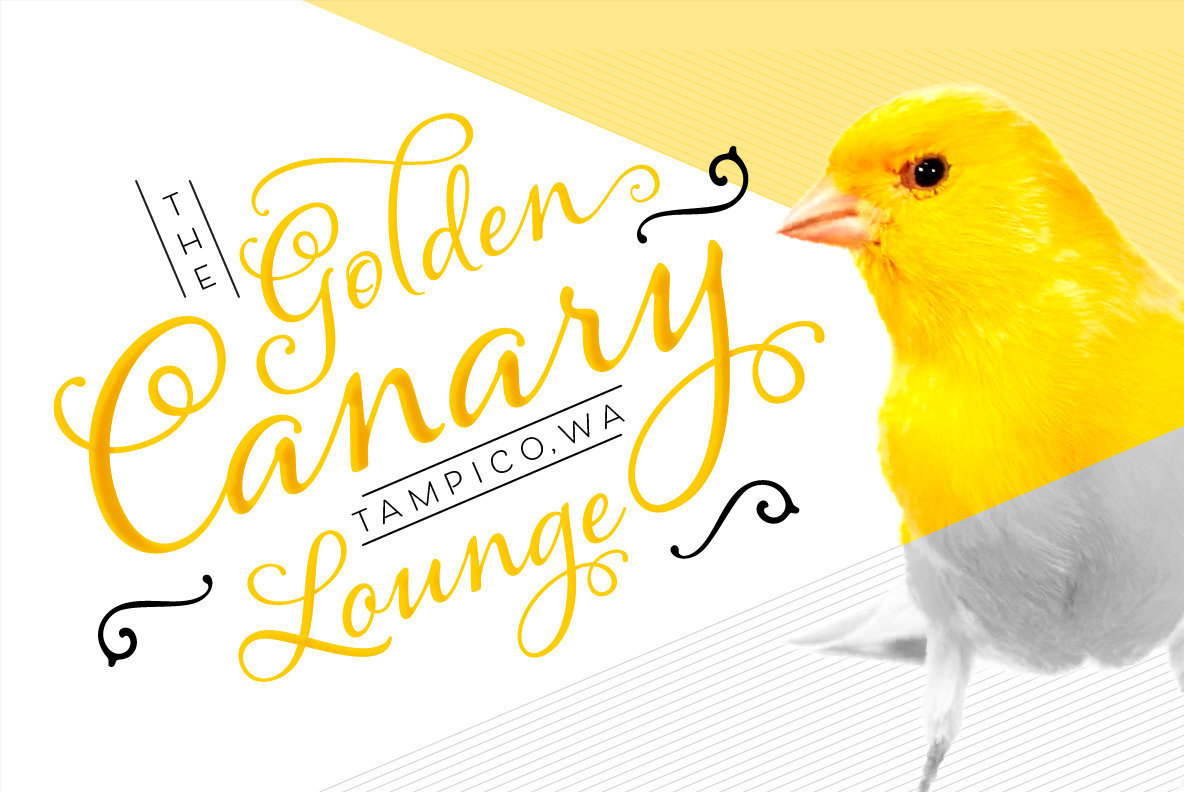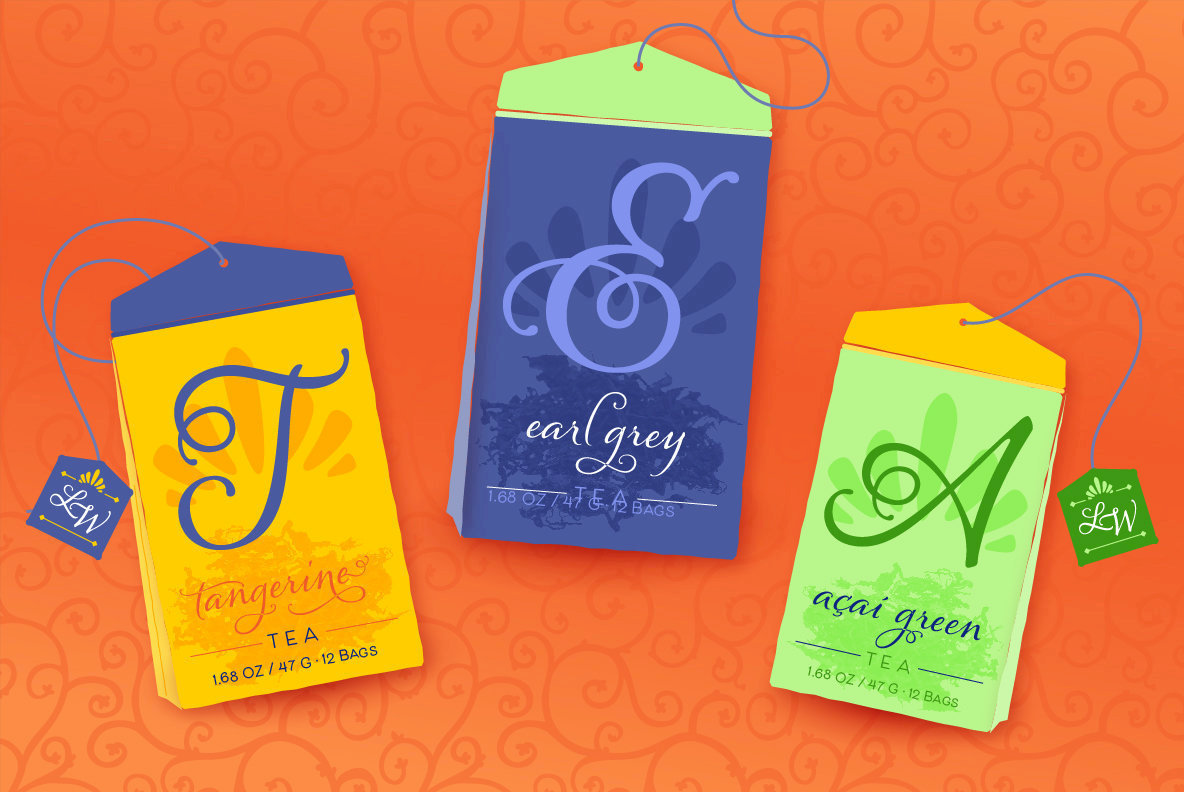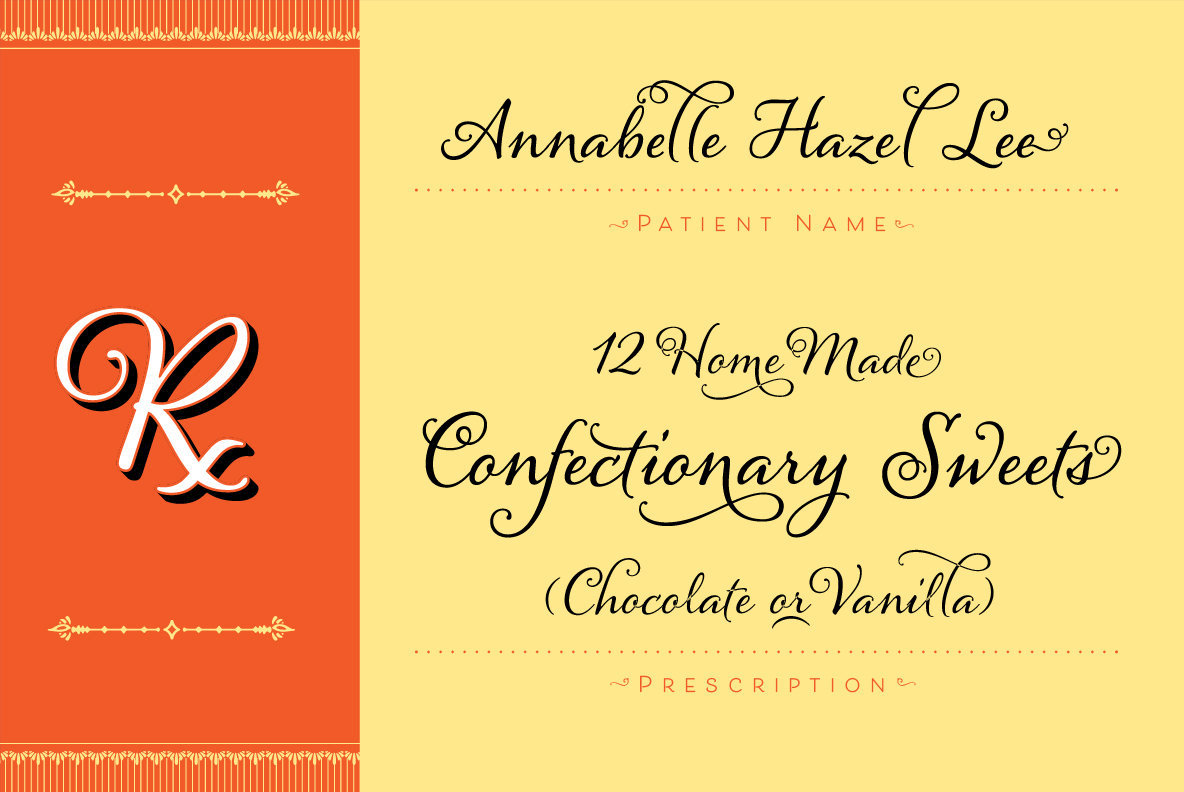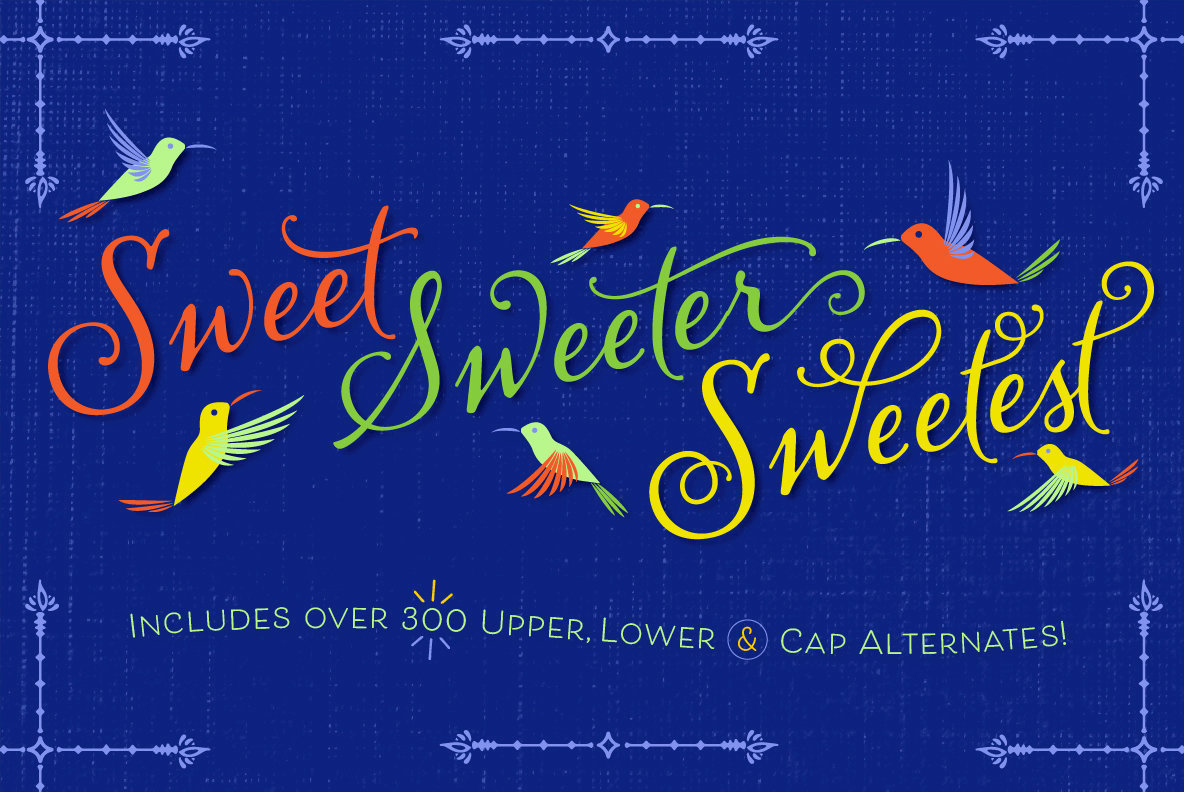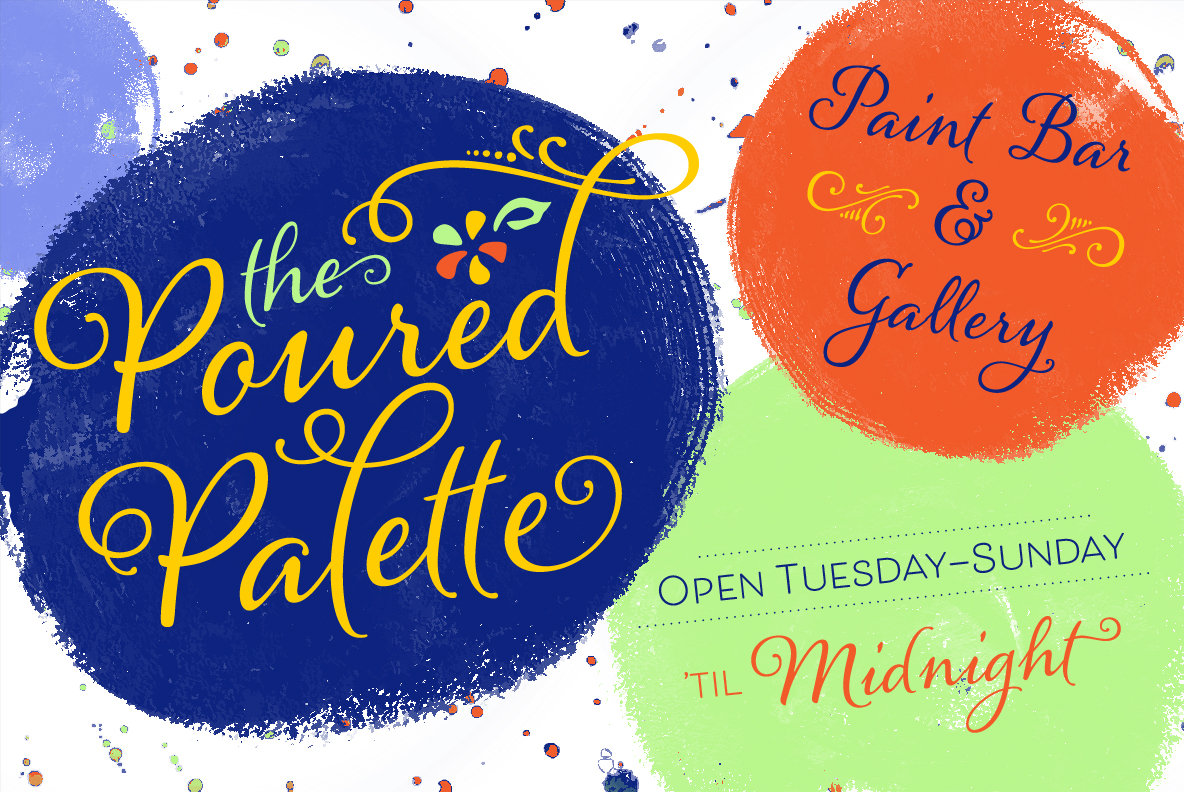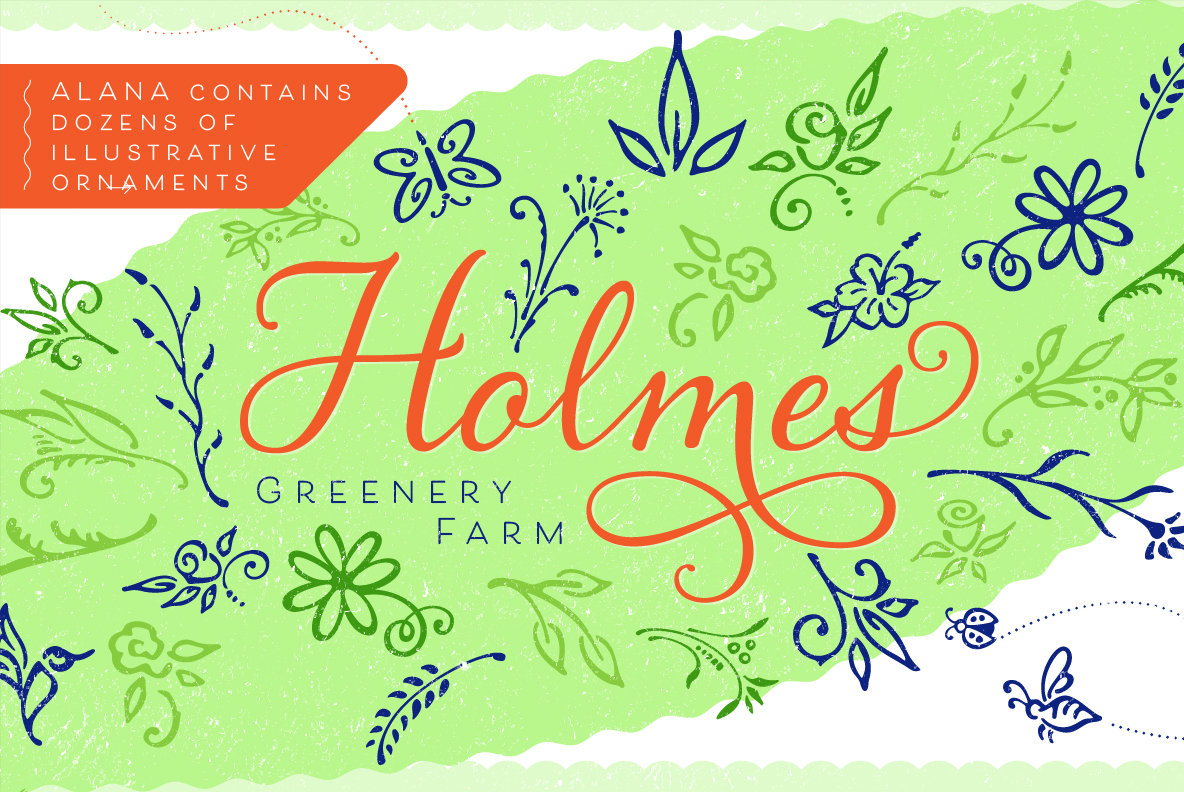
Alana Smooth 1
Alana is a connected script that glows with casual elegance. Its inviting letterforms work well in settings such as letter-writing and menu details; even at small sizes. Alana includes over 300 alternates, including swash capitals and ornamented forms to customize titles, headlines, packaging, and wordmarks. Alana includes 62 matching ornaments: botanical fleurons, birds, and cute lil’ bugs.